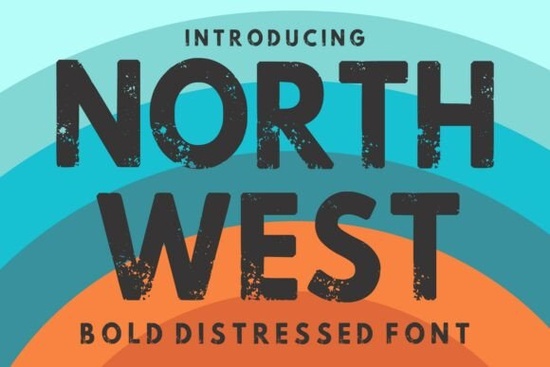
If you're working on a design that needs to feel raw, authentic, and full of attitude, the North West Font might be exactly what you’re looking for. This bold distressed display font brings a rugged, textured look that works especially well for projects with an urban, grunge, or retro vibe. Whether you’re designing t-shirts, posters, packaging, or branding materials, North West adds instant character without needing extra effects or overlays.
What makes North West Font stand out?
Unlike clean, modern sans-serifs, North West leans into imperfection. Its letterforms are strong but weathered like they’ve been stamped onto old signage or screen-printed one too many times. That intentional wear gives your work a handcrafted, vintage feel that’s hard to replicate with filters alone. It’s not just about looking old; it’s about conveying grit, rebellion, or nostalgia in a single headline.
This kind of texture-rich typography is especially useful if you’re creating designs for:
- Vintage-inspired apparel (think band tees or skate brands)
- Music posters or event flyers
- Craft beer labels or coffee packaging
- Streetwear logos or urban lifestyle branding
Because it’s a display font, North West is meant for short bursts of text logos, headlines, or featured quotes not body copy. But used correctly, it can anchor your entire visual identity with minimal effort.
How does it compare to other distressed or retro fonts?
If you’ve browsed Creative Fabrica’s display fonts before, you’ve probably seen options like Retro Funky, which leans more into 70s disco flair, or Varsity Reborn, which channels classic American school spirit with a modern twist. North West sits in a different lane: less playful, more grounded. It doesn’t wink at the past it stares at it through a cracked windshield.
Other textured fonts like Vertical Dentist offer quirky, almost surreal shapes, while School Mission mimics chalkboard handwriting with warmth and approachability. And if you need something softer maybe for wedding invites or romantic branding you’d likely lean toward Dolce Love instead. North West isn’t trying to be sweet or whimsical. It’s built for impact.
Who should use this font?
Print-on-demand sellers will find North West especially handy. A simple phrase like “Built Not Bought” or “No Days Off” instantly gains credibility when set in this typeface. Small business owners launching a gritty coffee roastery, a tattoo parlor, or a vintage motorcycle shop can use it to signal authenticity without over-designing.
Hobbyists and crafters also benefit imagine stenciling it onto wood signs, using it in layered SVG files for Cricut projects, or adding it to handmade greeting cards with an edgy theme. The distressed texture means you don’t have to add extra aging effects; the font does the heavy lifting.
Just keep in mind: because of its bold weight and rough edges, legibility can suffer at small sizes or on low-resolution prints. Always test your final output, especially if you’re selling physical products.
Tips for pairing and using North West effectively
Since North West is so visually dominant, pair it with neutral, clean supporting fonts. A simple sans-serif like Montserrat, Helvetica, or even Arial in regular weight creates balance. Avoid pairing it with another distressed or decorative font that can quickly become chaotic.
Also consider spacing. Because the letters have uneven edges, slightly increasing letter-spacing (tracking) can help each character breathe and improve readability, especially in all-caps settings.
And don’t forget color. While black on white gives maximum contrast, try reversing it (white text on dark backgrounds) or using muted tones like olive green, burnt orange, or deep navy to enhance the vintage mood.
Before you commit, ask yourself: does my project need to feel tough, timeless, or slightly rebellious? If yes, North West is a strong contender.
Ready to try it?
If you’re exploring textured display fonts for your next creative project, here’s a quick checklist:
- Define your tone: Is your brand or design meant to feel rugged, nostalgic, or urban?
- Test legibility: Preview North West at your intended size and on your chosen medium (digital, fabric, paper, etc.).
- Pair wisely: Choose a simple, neutral secondary font for any supporting text.
- Compare alternatives: Browse similar styles like Retro Funky or Varsity Reborn to ensure North West fits your vision best.
When used thoughtfully, a font like North West doesn’t just convey words it conveys attitude. And sometimes, that’s exactly what your design needs.